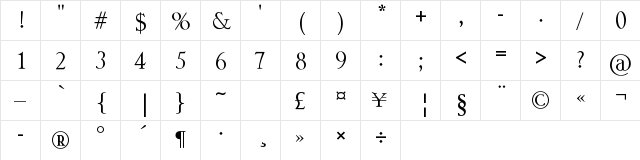
CJM Kh 001 Regular
| Designer | Mr. Abupakr (Leb Ke) |
Design Context for CJM Kh 001 Typeface
CJM Kh 001 is a composed and adaptable typeface that performs quietly and consistently across a wide range of design contexts.